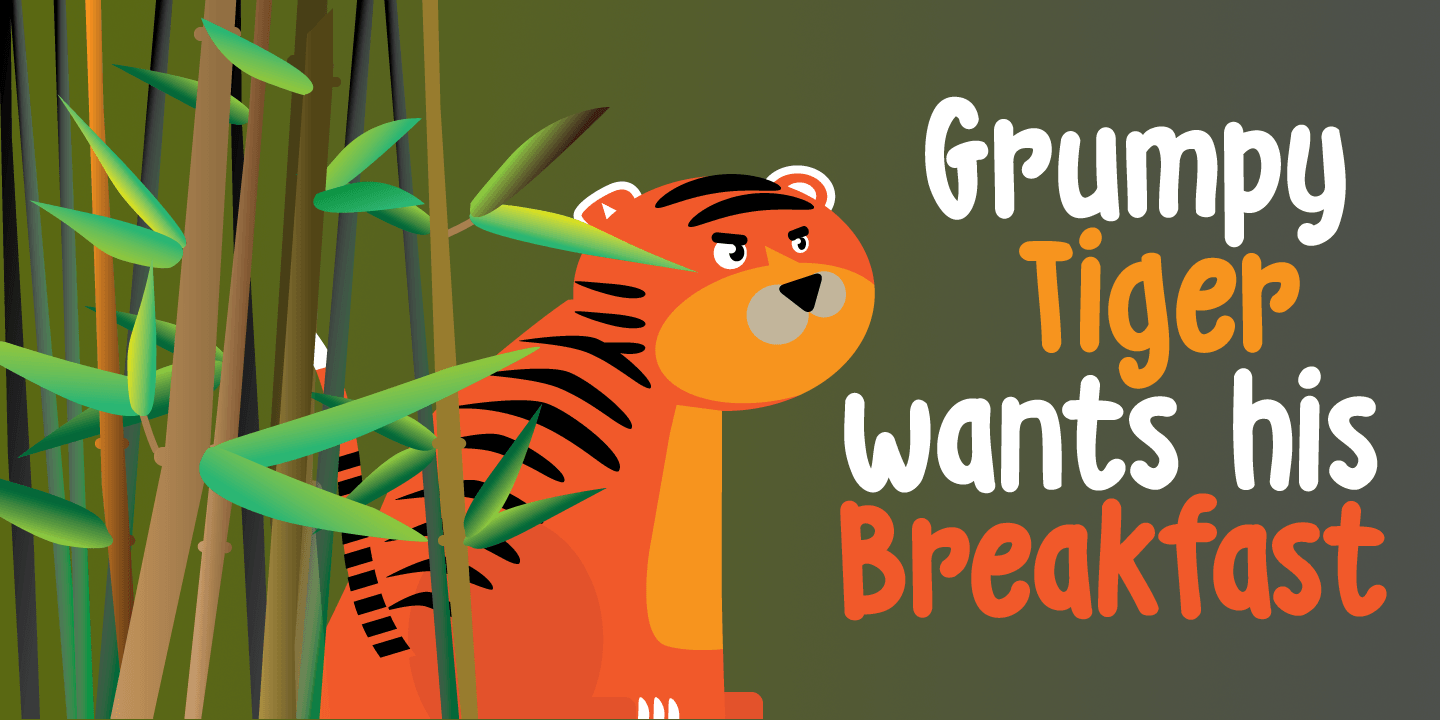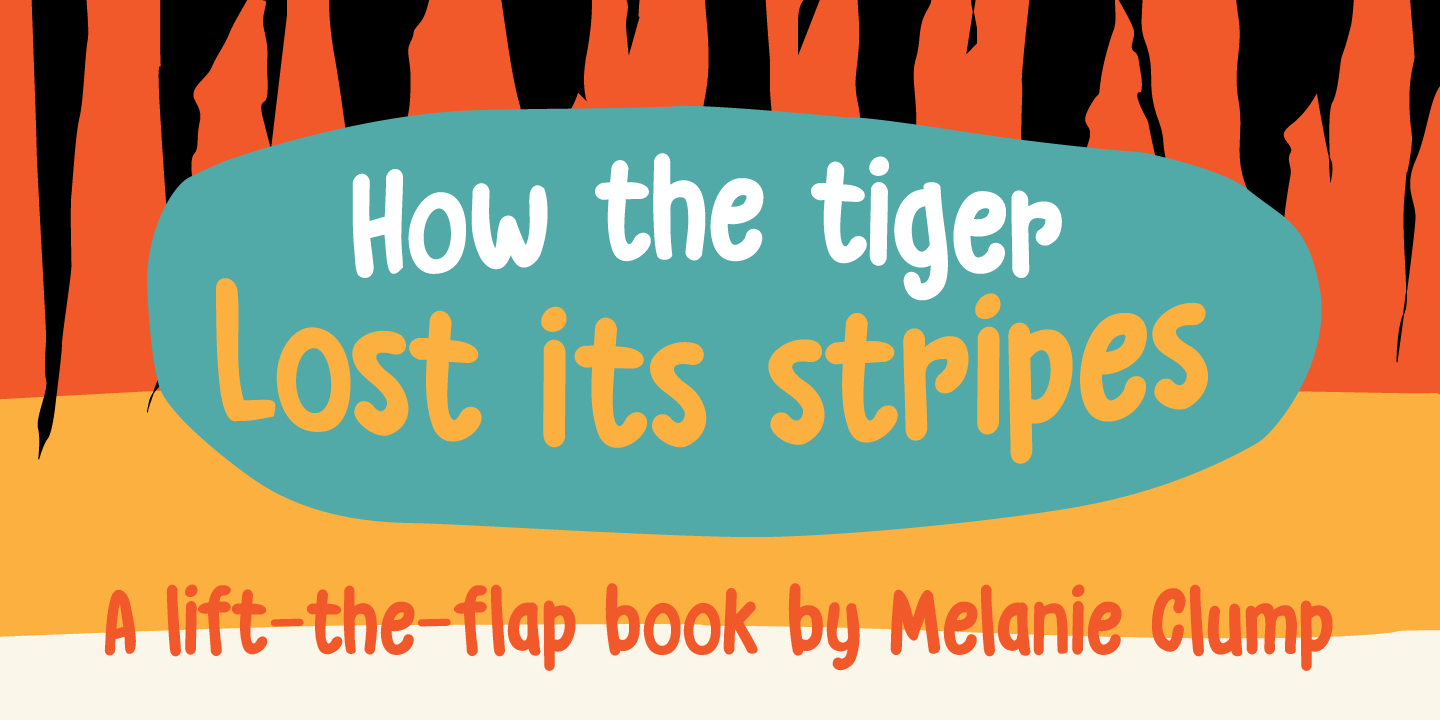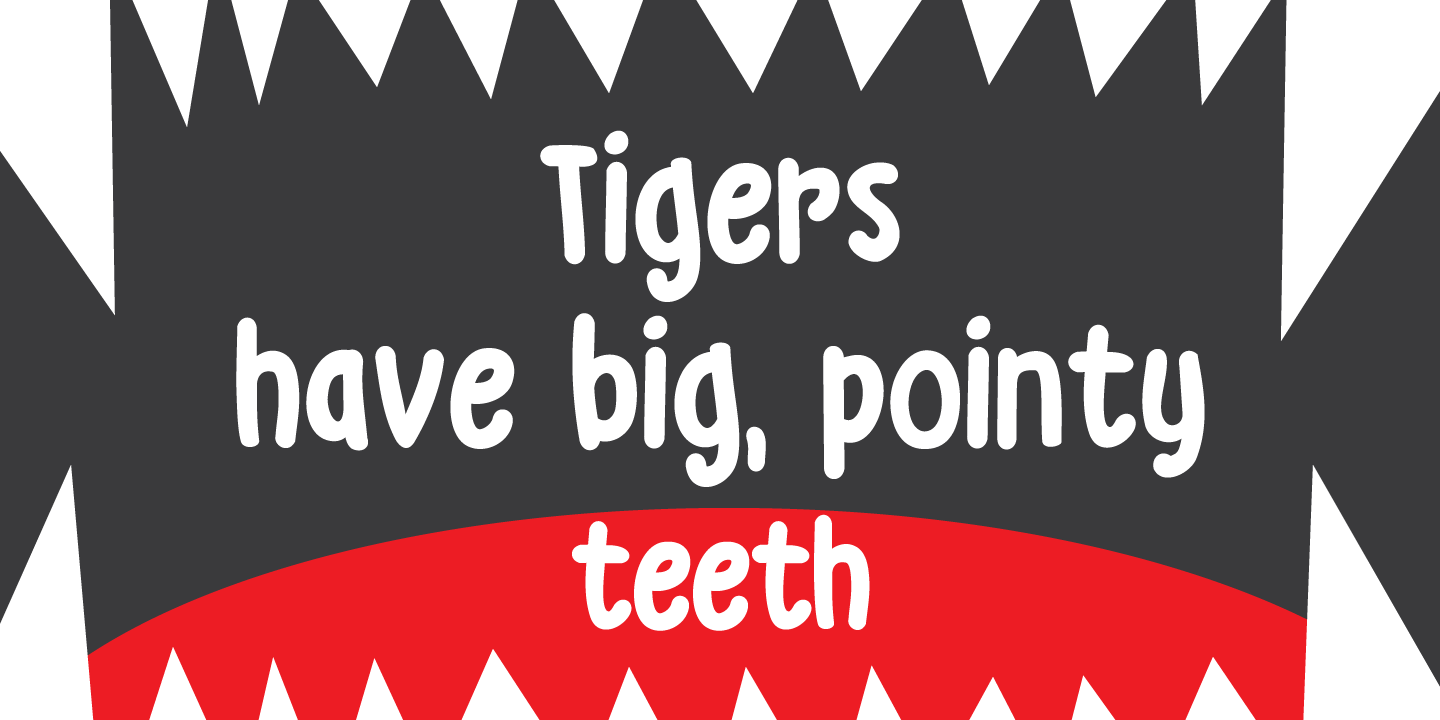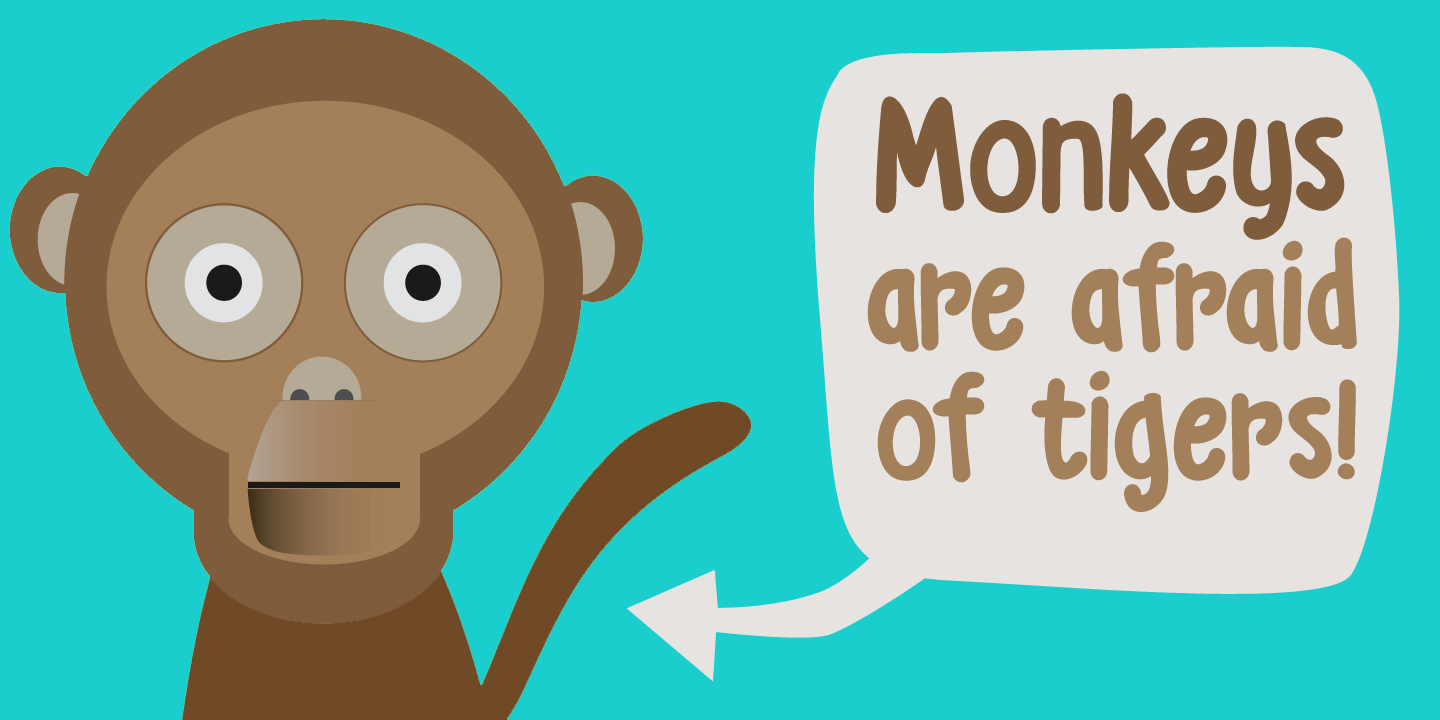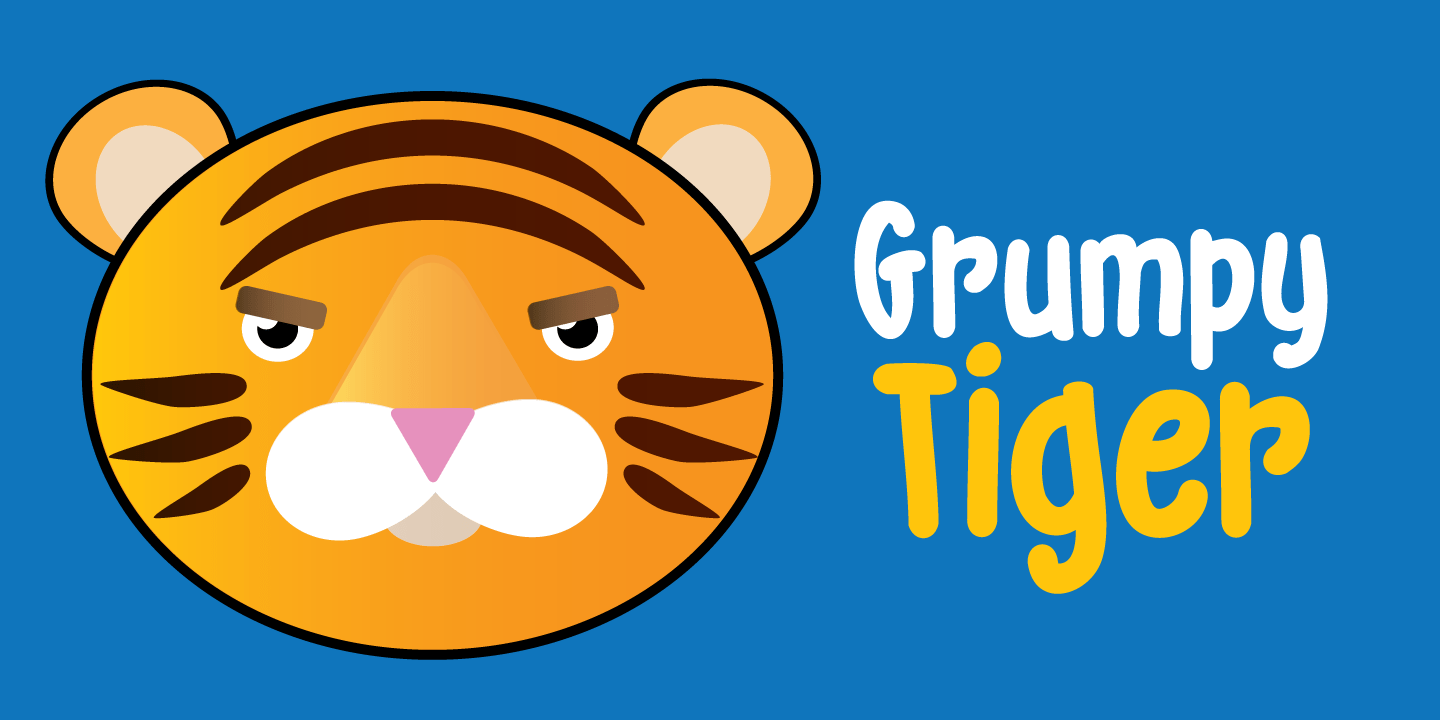
Grumpy Tiger
About Grumpy Tiger
I really like tigers! In fact, I like all animals, but the tiger is my favorite! Grumpy Tiger is a ?kiddie? font: it is bold and rounded, very legible and doesn\’t have complicated glyphs. It would look fantastic on new children\’s books, posters and product…